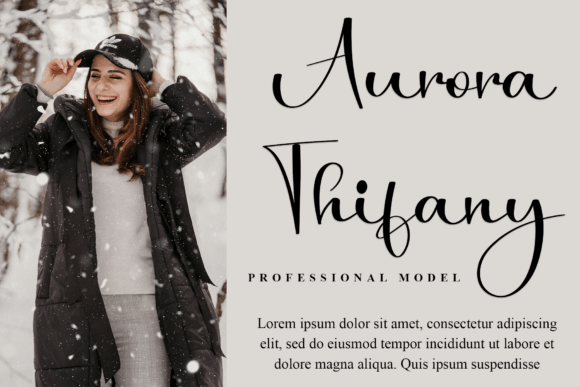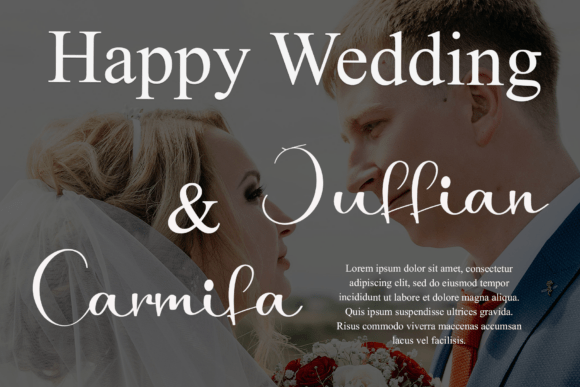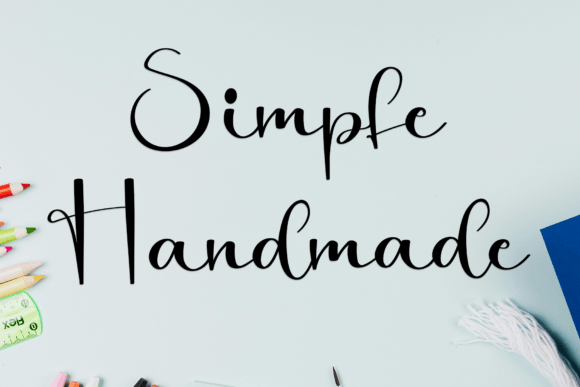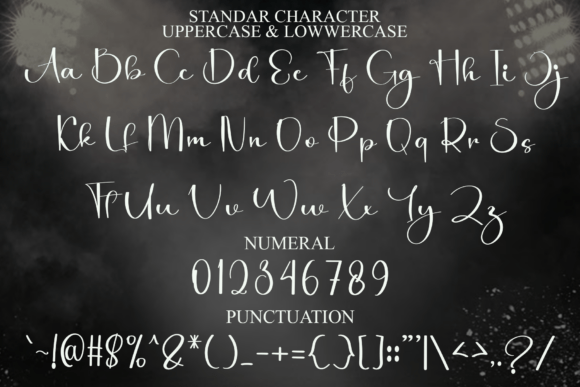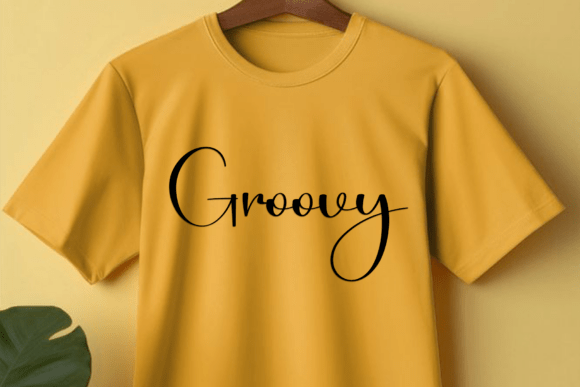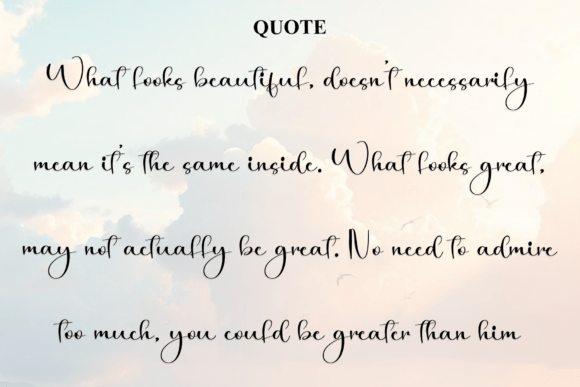
Introducing Angelina Calligraphy Font: Elevate Your Designs with Elegance
Are you a designer or crafter looking for a typeface that exudes sophistication and refinement? Look no further than the Angelina Calligraphy Font. This stunning script font is designed to bring a touch of luxury and elegance to any design, making it perfect for wedding stationery, high-end branding, and heartfelt quotes.
The Beauty of Angelina Calligraphy Font
Angelina Calligraphy Font is an elegant script font that boasts flowing strokes and graceful curves. Its refined, handwritten charm makes it an ideal choice for designers and crafters who want to add a personal touch to their work. The font’s intricate details and beautiful swashes make it perfect for creating stunning wedding stationery, luxury branding materials, and social media graphics.
Perfect for Wedding Stationery and Luxury Branding
Wedding planners, stationery designers, and luxury brands, rejoice! Angelina Calligraphy Font is specifically designed to meet your needs. Its elegant and sophisticated design makes it perfect for:
- Luxury branding and packaging
- Social media graphics and quotes
- Event invitations and programs
- High-end product labels and descriptions
Key Features of Angelina Calligraphy Font
So, what makes Angelina Calligraphy Font so special? Here are some of its key features:
- Elegant script design: With its flowing strokes and graceful curves, this font is sure to impress.
- Refined, handwritten charm: Add a personal touch to your designs with this beautiful, handwritten font.
- Perfect for luxury branding: Elevate your brand with a sophisticated and high-end typeface.
- Extensive character set: Includes uppercase and lowercase letters, numbers, and punctuation marks.
- Beautiful swashes and ligatures: Add a touch of elegance to your designs with these beautiful swashes and ligatures.
Tips for Using Angelina Calligraphy Font
To get the most out of Angelina Calligraphy Font, here are some tips to keep in mind:
- Use it sparingly: This font is perfect for headlines, titles, and quotes, but use it sparingly to avoid overwhelming your design.
- Pair it with a sans-serif font: Pair Angelina Calligraphy Font with a clean sans-serif font for a beautiful contrast.
- Experiment with colors and textures: Try out different colors and textures to add depth and interest to your design.
- Pay attention to spacing and kerning: Make sure to adjust the spacing and kerning to ensure your text is easy to read.
In conclusion, Angelina Calligraphy Font is a stunning script font that is sure to elevate your designs with its elegance and refinement. Perfect for wedding stationery, luxury branding, and heartfelt quotes, this typeface brings a touch of sophistication and luxury to any design. With its flowing strokes, graceful curves, and beautiful swashes, Angelina Calligraphy Font is a must-have for designers and crafters looking to add a personal touch to their work.